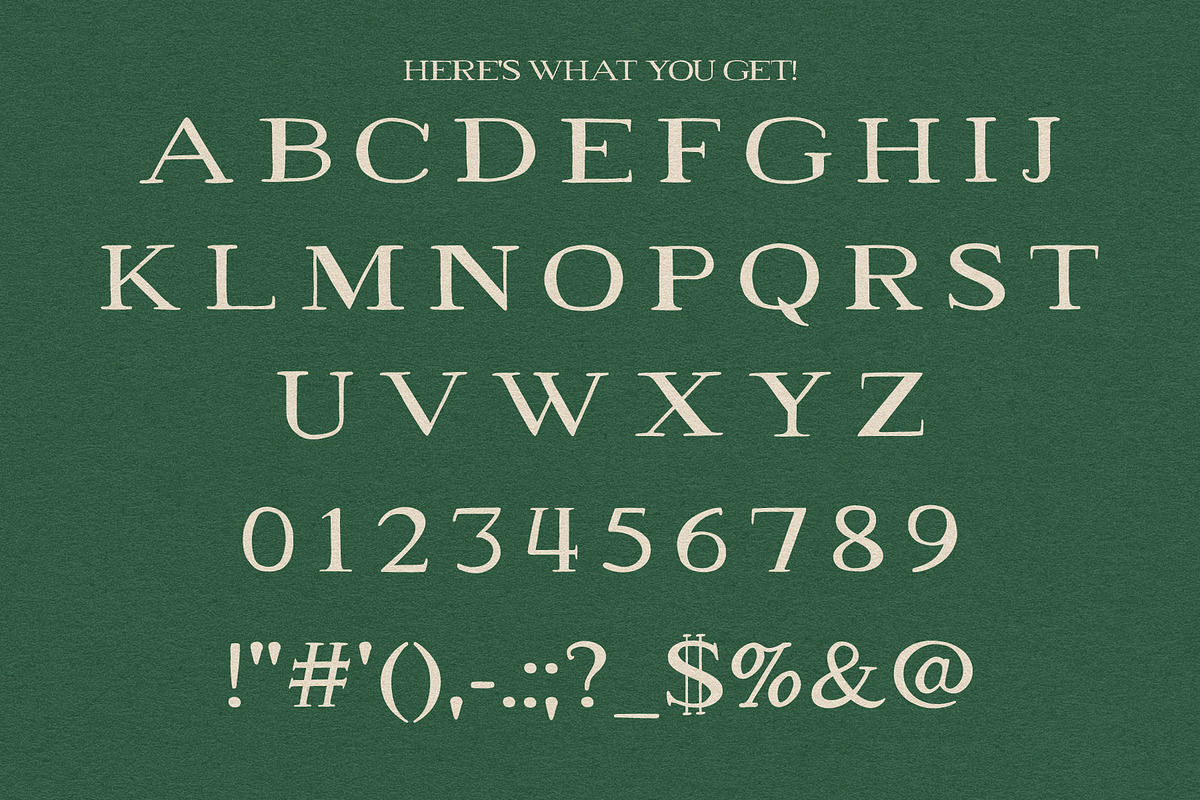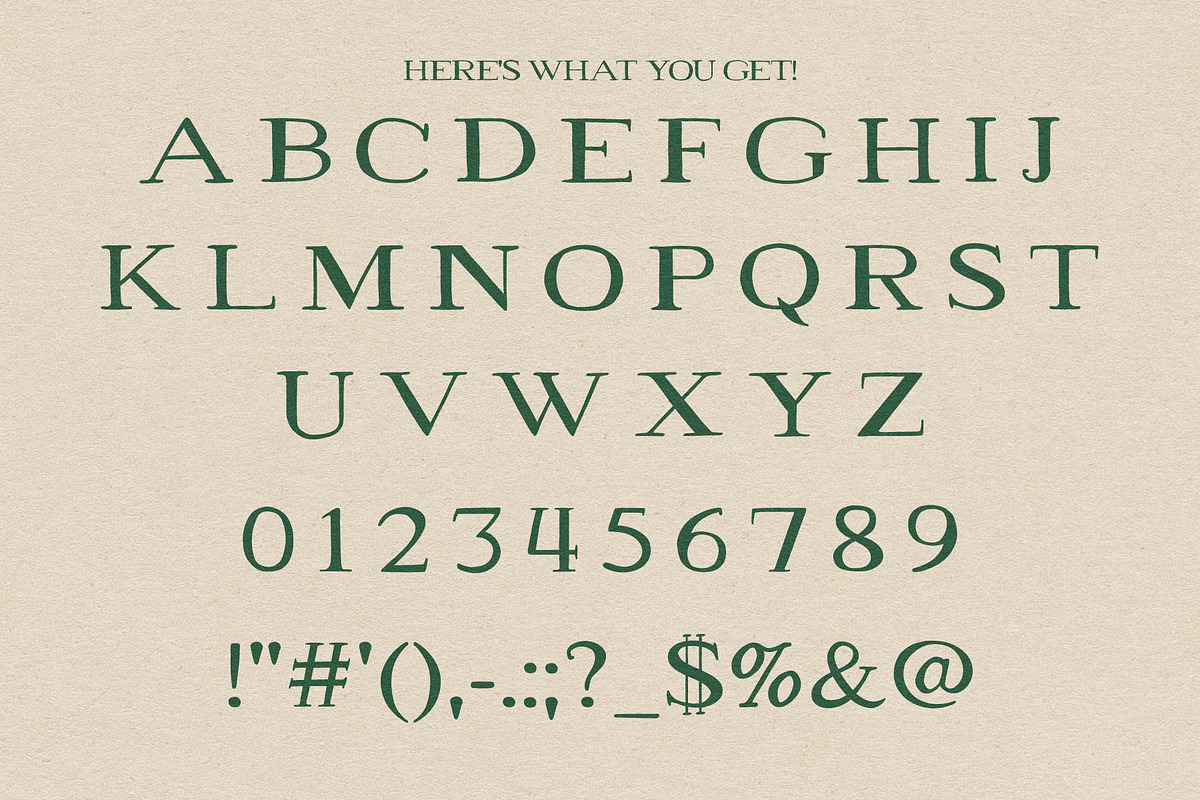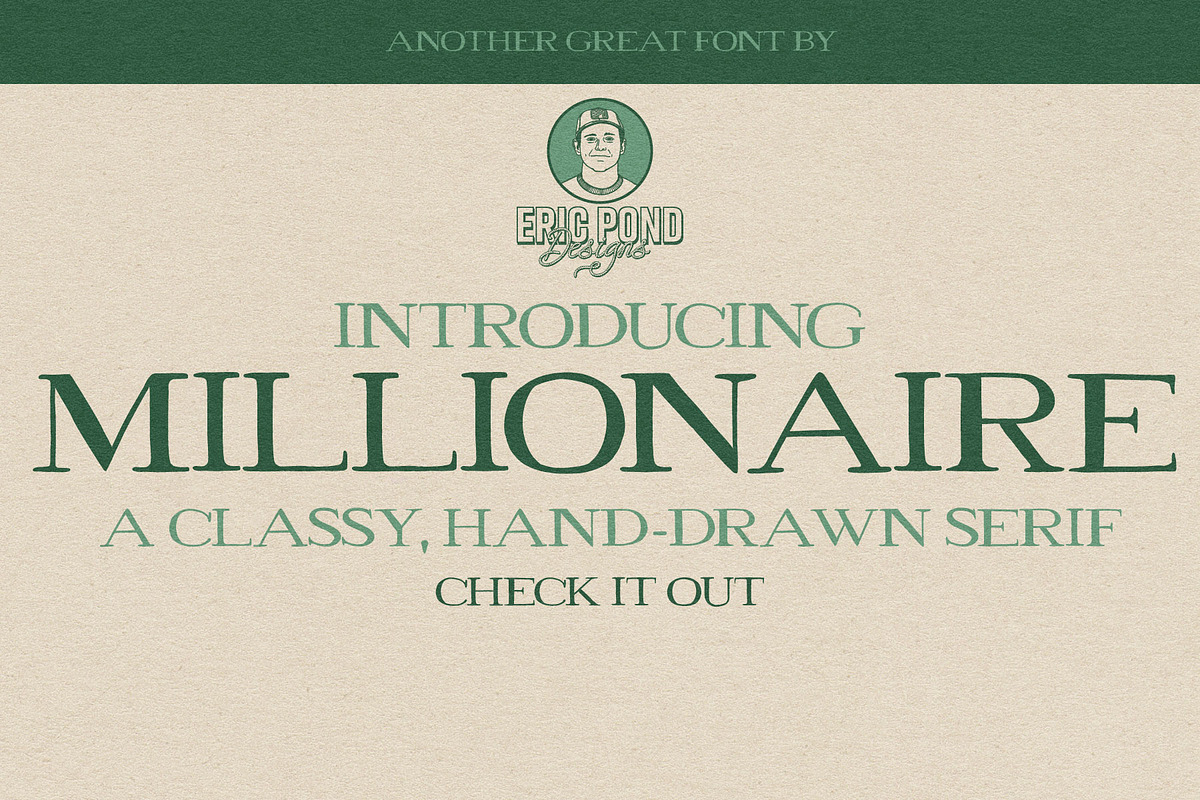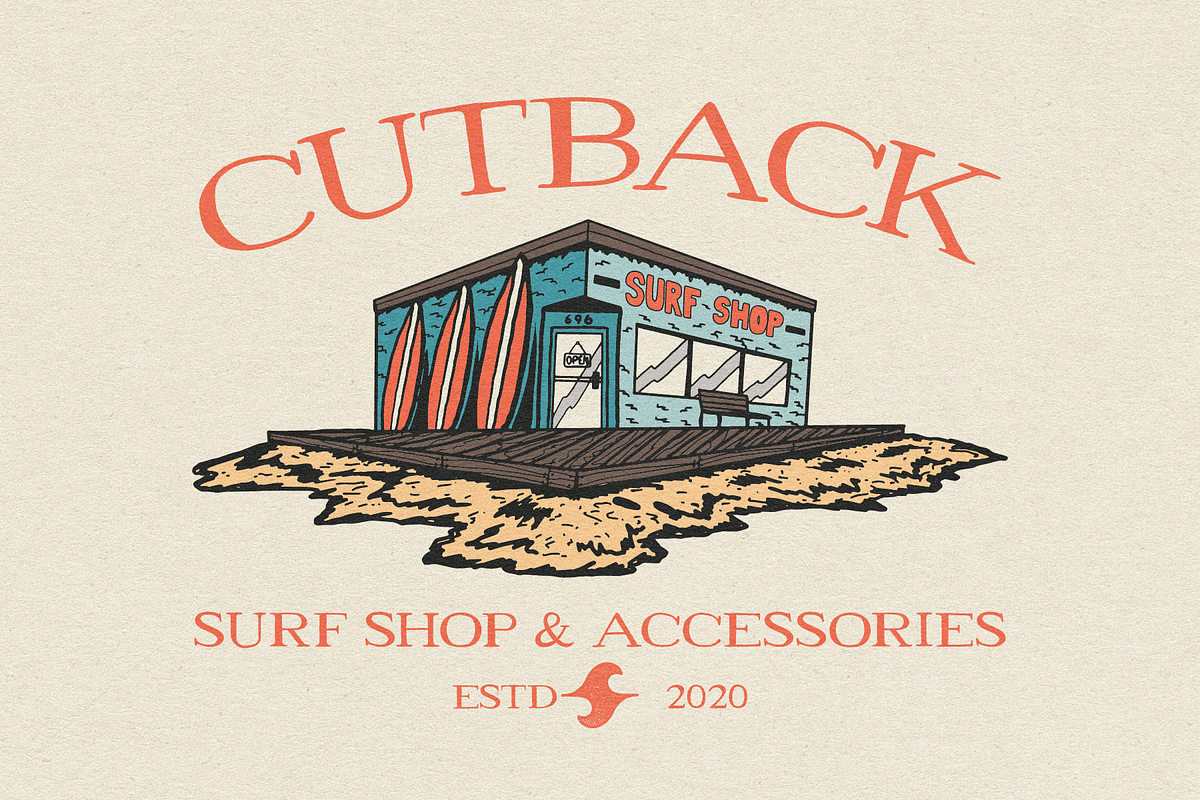
Millionaire
Introducing Millionaire! A Classy, Hand-drawn serif font by Eric Pond Designs! This font features uppercase characters, numbers and punctuation.